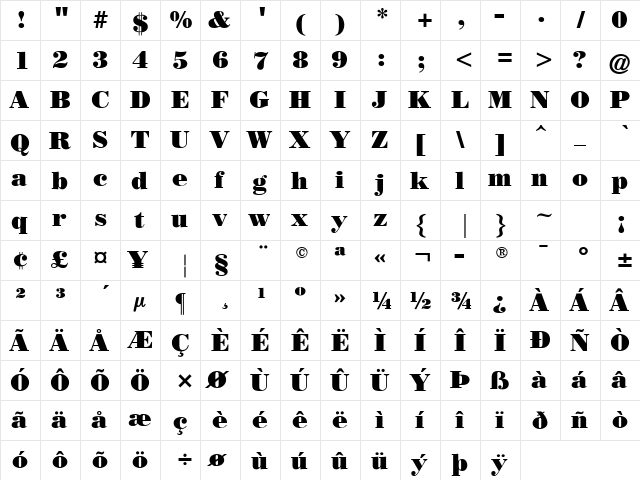
BodinPost Regular
Design Context for BodinPost Typeface
BodinPost offers clean, dependable letterforms without strong stylistic allegiance, making it a practical choice for designers who need flexibility.